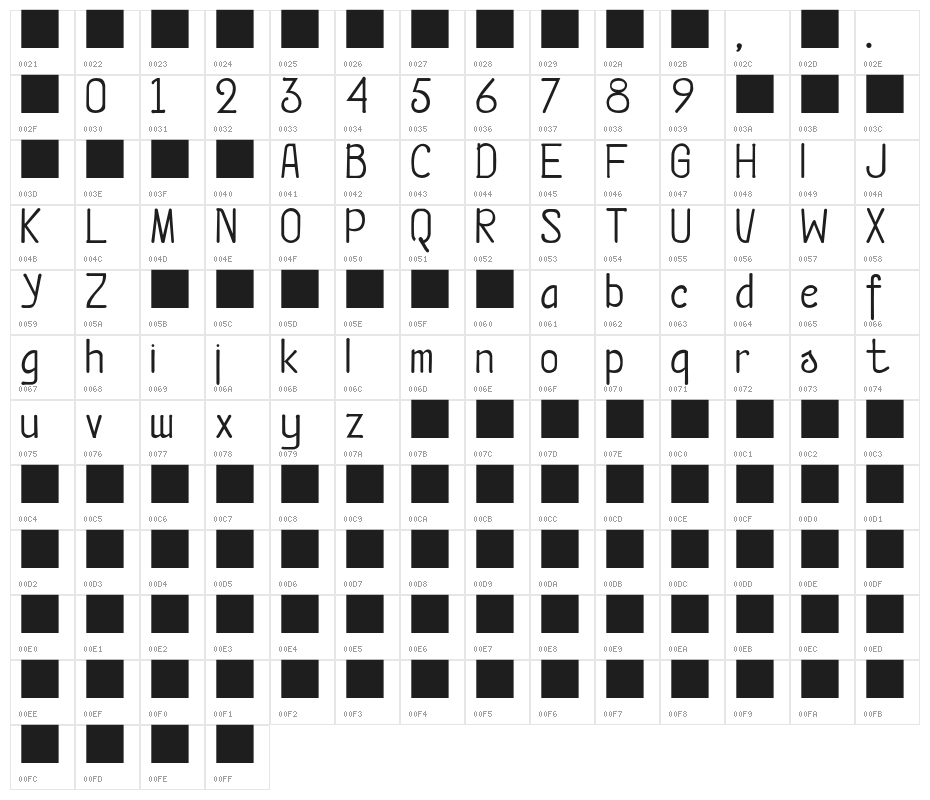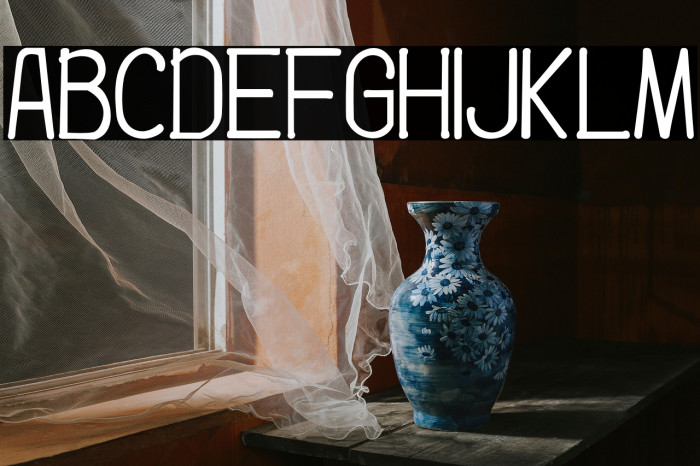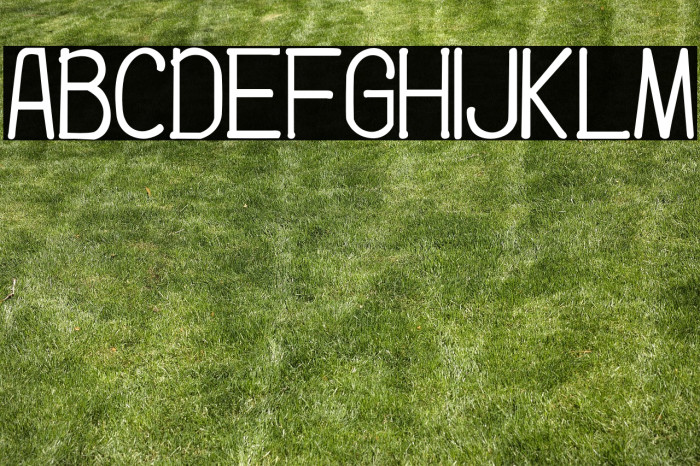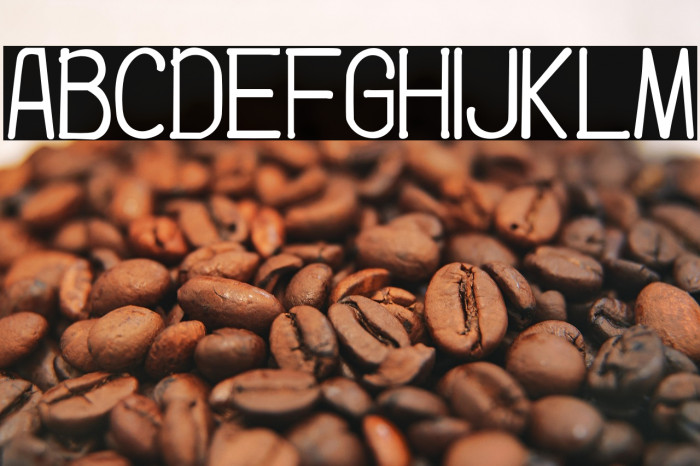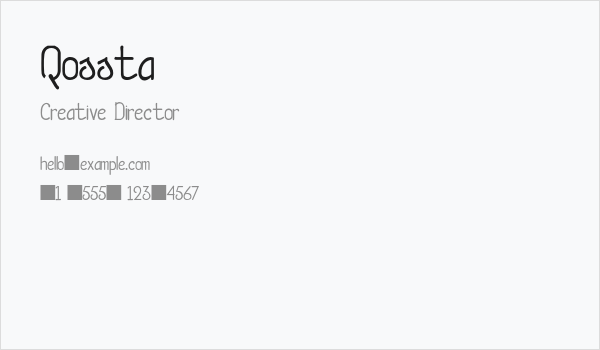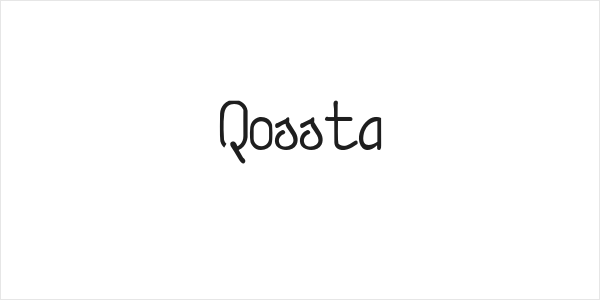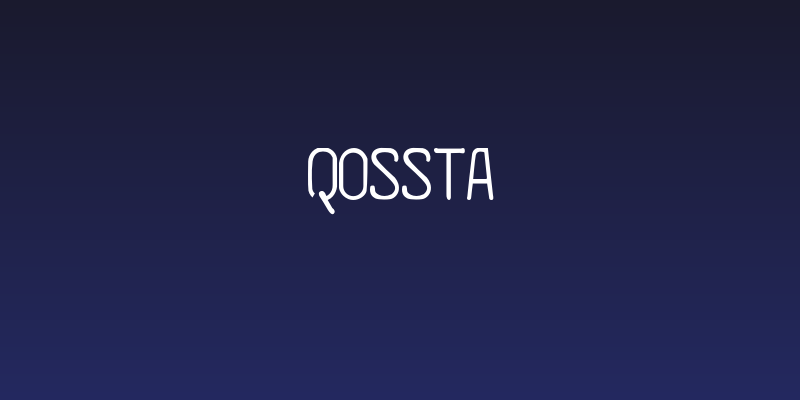
Qossta Font
Qossta Description
This font features a playful and modern design with rounded edges and a slightly condensed form. The characters are uniform in width, giving a consistent appearance across both uppercase and lowercase letters. The strokes are smooth and even, providing a clean and approachable look. The numerals are distinct and easy to read, maintaining the same rounded style. Special characters are well-integrated, ensuring versatility in various design contexts. Overall, the font exudes a friendly and contemporary vibe, making it suitable for a wide range of applications.